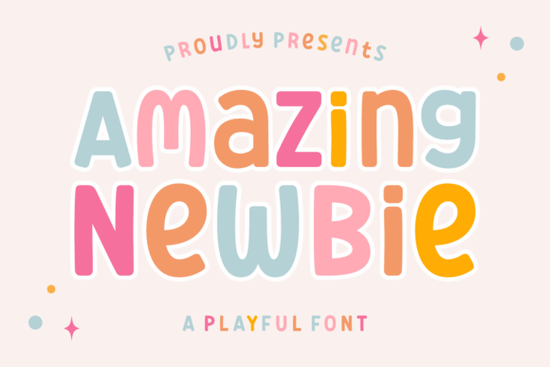
If you're looking for a display font that feels fresh, friendly, and full of personality without sacrificing readability or versatility Amazing Newbie Font is worth your attention. It’s not just another retro typeface; it’s a thoughtfully crafted design tool that brings warmth and energy to everyday projects. Whether you’re designing kids’ stickers, planning a summer-themed digital planner, or building a playful brand identity for a small business, this font fits right in especially if you appreciate subtle ’70s flair with modern usability.
What makes Amazing Newbie different from other retro display fonts?
Unlike many fonts that lean too hard into nostalgia (think heavy distressing or overly complex swashes), Amazing Newbie balances boldness with clarity. Its letterforms are bubbly and rounded, with gentle wave-like curves that feel hand-drawn but still clean enough for screen and print use. The spacing is generous, and the x-height is tall both features that help it stay legible even at smaller sizes, like on mobile thumbnails or product tags.
Where does Amazing Newbie work best?
This font shines in contexts where tone matters as much as typography. Think:
- Children’s product packaging its cheerful shape reads as approachable and safe, not gimmicky.
- Digital planners and habit trackers especially summer or back-to-school themed ones, where visual lightness helps reduce screen fatigue.
- YouTuber thumbnails and social banners it stands out in crowded feeds without relying on loud colors alone.
- Print-on-demand T-shirts and mugs the bold weight holds up well in DTG and sublimation printing.
- Casual game UI elements, like button labels or achievement badges where friendliness supports user engagement.
It’s also a smart pick if you’re exploring maximalist design trends. Pair it with layered textures, soft gradients, or muted psychedelic palettes and it adds charm without overwhelming the layout. You’ll find it works especially well alongside more neutral sans-serifs or minimalist serifs for contrast.
How does it compare to similar display fonts on Creative Fabrica?
If you’ve already tried Unibelle Font, you’ll notice Amazing Newbie leans more into playfulness than elegance. Where Unibelle has delicate flourishes and refined spacing, Amazing Newbie trades some polish for punch and personality.
Compared to Robobo Font, which leans into techy, rounded geometry, Amazing Newbie feels warmer and more organic less “futuristic robot,” more “sun-drenched sidewalk chalk art.”
And while Spookify Font nails Halloween whimsy with jagged edges and uneven baselines, Amazing Newbie keeps things smooth and inclusive ideal for year-round use, not just seasonal bursts.
Even next to bolder options like Chonkster Font, Amazing Newbie offers better flow for longer phrases. Chonkster excels in short, impactful headlines; Amazing Newbie handles taglines, feature lists, and callouts with equal ease.
Try pairing Amazing Newbie with a simple, highly legible sans-serif (like Poppins or Inter) for body text it creates a clear visual hierarchy without competing tones. Avoid stacking it with other heavily stylized fonts unless you’re intentionally going for collage-style energy.
If you’re using it for cut files, check the SVG version first: it preserves curves cleanly and scales without pixelation. For Procreate users, the included brush set lets you add subtle texture overlays great for handmade-feel social posts or printable wall art.
For reference, you can see how designers are using it in real projects on Amazing Newbie Font on Creative Fabrica.
Before adding it to your next project, ask yourself:
- Does my audience respond well to upbeat, friendly visuals or do they prefer something more serious or minimalist?
- Will this font be used mostly at large sizes (headlines, logos) or smaller ones (captions, labels)?
- Do I need multilingual characters for my market? (If yes, double-check the language coverage in the product details.)
If most answers point toward fun, flexible, and functional, Amazing Newbie is likely a solid fit and one you’ll reach for again once you start experimenting with its rhythm and warmth.